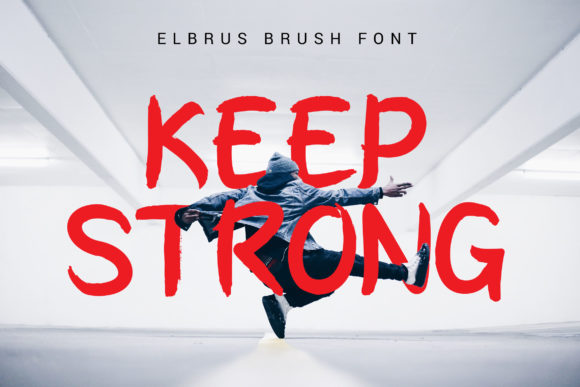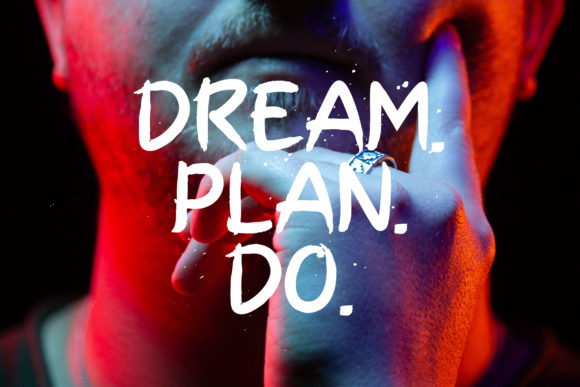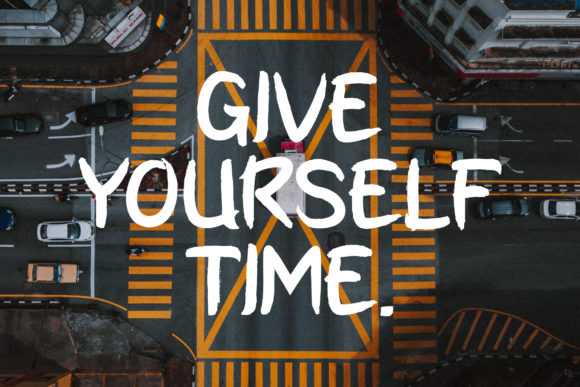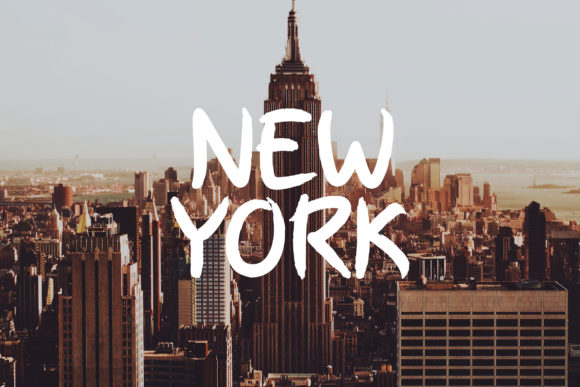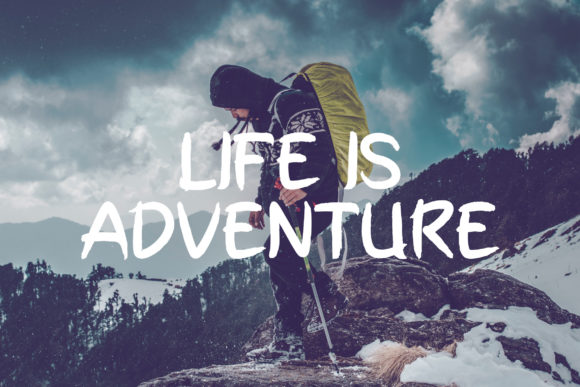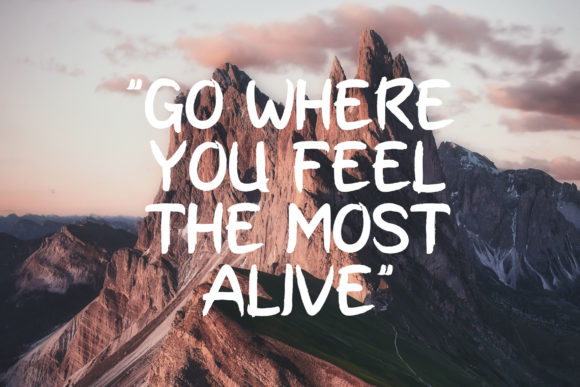
Introducing Elbrus Font: The Modern Brush Font for Stunning Content
In the world of typography, a good font can make all the difference in creating engaging and readable content. For designers and crafters looking for a modern brush font that brings a touch of road style to their work, look no further than Elbrus Font. This carefully crafted font is designed to provide a fresh and unique look to your posts, with a focus on legibility, clear types, and versatility.
The Story Behind Elbrus Font
Elbrus Font is the brainchild of a team of designers who sought to create a font that would stand out in the digital landscape. With a focus on modernity and style, they carefully crafted each character to ensure that it is not only visually appealing but also highly legible. The result is a font that is perfect for creating stunning content that resonates with a wide audience.
Key Features of Elbrus Font
So, what sets Elbrus Font apart from other fonts in the market? Here are some of its key features:
- Modern Brush Style: Elbrus Font boasts a modern brush style that gives your content a fresh and trendy look.
- Carefully Crafted Characters: Each character in Elbrus Font is carefully made to ensure that it is visually appealing and highly legible.
- Highly Legible: The font is designed to be highly legible, making it perfect for creating content that needs to be read and understood quickly.
- Clear Types: Elbrus Font features clear types that make it easy to read and understand.
- Lots of Variations: The font comes with lots of variations, making it perfect for creating content that appeals to a wide audience.
Why Choose Elbrus Font?
With so many fonts available in the market, why should you choose Elbrus Font? Here are some reasons:
- Unique Look: Elbrus Font offers a unique look that sets it apart from other fonts.
- Versatility: The font is highly versatile and can be used for a wide range of design projects.
- Easy to Read: Elbrus Font is highly legible, making it perfect for creating content that needs to be read and understood quickly.
- Supports Multiple Languages: The font supports multiple languages, making it perfect for creating content for a global audience.
Tips for Using Elbrus Font
Here are some tips for using Elbrus Font:
- Use it for Headings: Elbrus Font is perfect for headings and titles.
- Experiment with Colors: Experiment with different colors to find the one that works best for your content.
- Pair it with Other Fonts: Pair Elbrus Font with other fonts to create a unique look.
- Use it for Branding: Use Elbrus Font for branding and marketing materials.
In conclusion, Elbrus Font is a modern brush font that is perfect for designers and crafters looking for a fresh and unique look. With its carefully crafted characters, high legibility, and versatility, it is perfect for creating stunning content that resonates with a wide audience. Whether you’re creating headings, titles, or marketing materials, Elbrus Font is the perfect choice.